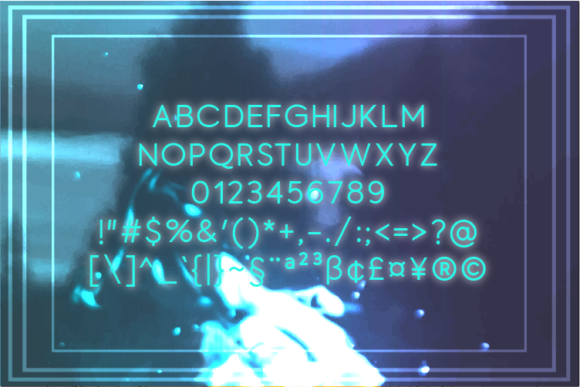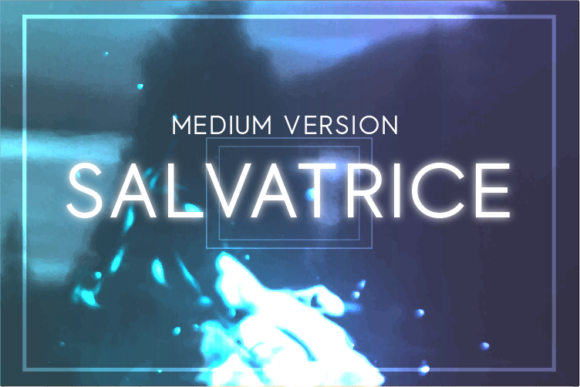
Introduction to Salvatrice Medium Font
Salvatrice Medium is a classy and elegant sans serif font.
It’s a great choice for your new projects This font can be used in a wide variety of applications from logos, web design, magazine covers – the only limit is your imagination.
Key Features of Salvatrice Medium Font
Why Choose Salvatrice Medium Font?
Salvatrice Medium Font offers exceptional quality and versatility, making it a valuable addition to your design toolkit. Whether you’re creating for personal projects or commercial use, Salvatrice Medium Font delivers professional results.